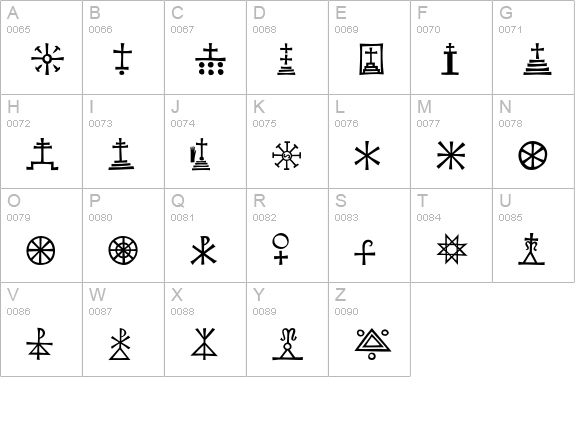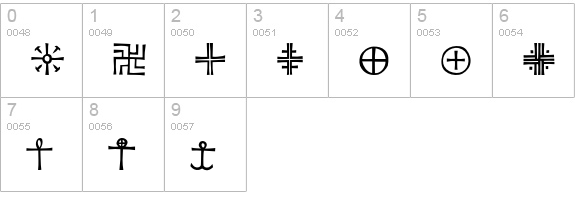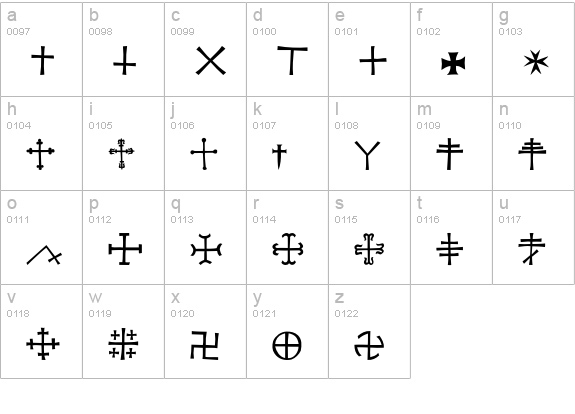
KochSignsTwo Font Details
KochSignsTwo font is a unique and eye-catching typeface that is sure to make your designs stand out. With its bold and modern look, this font is perfect for adding a touch of style to any project. The geometric shapes and sharp lines of KochSignsTwo font give it a contemporary and edgy feel, making it ideal for posters, logos, headlines, and more. The best part? KochSignsTwo font is available for free! You can easily download this font at FontsMarket.com and start using it in your designs right away. Don't miss out on the opportunity to add this striking font to your collection today!